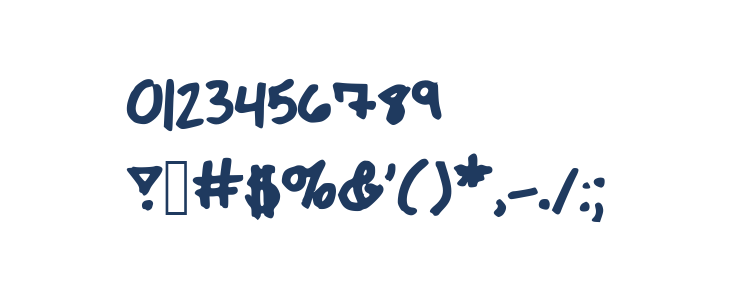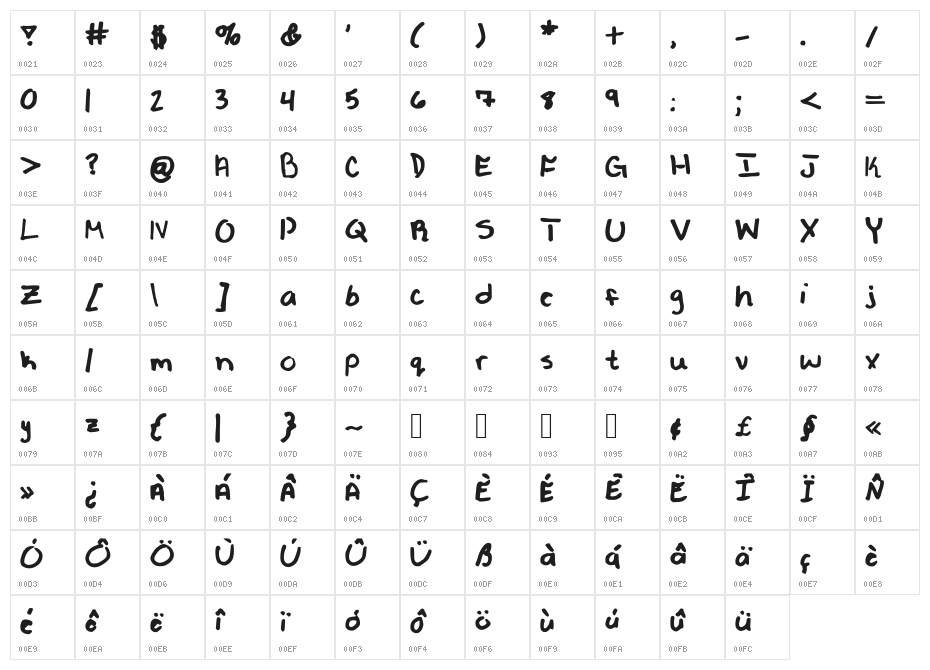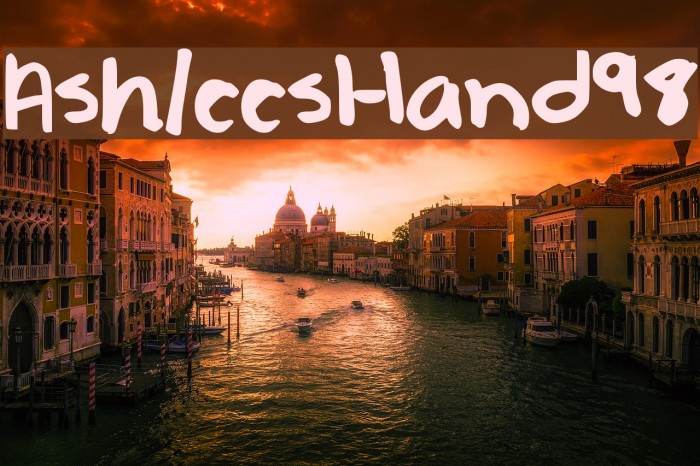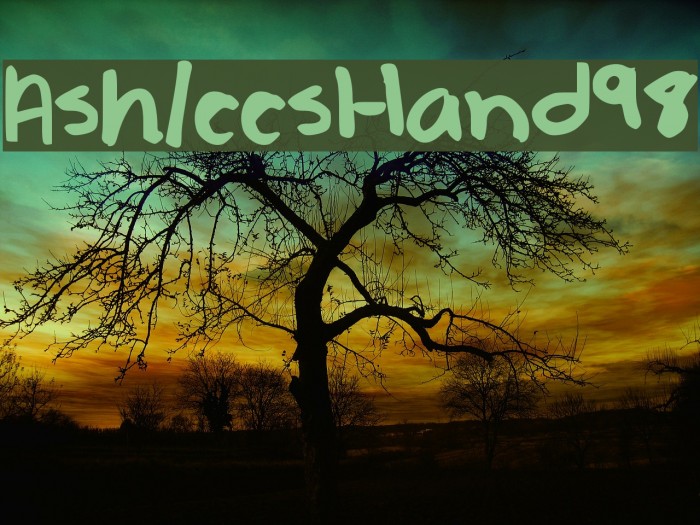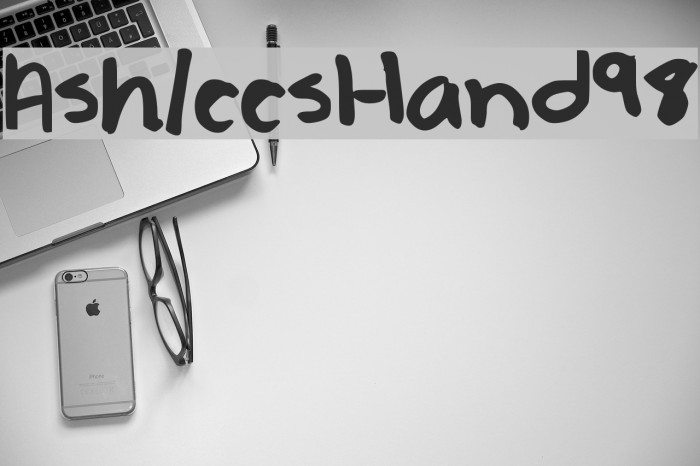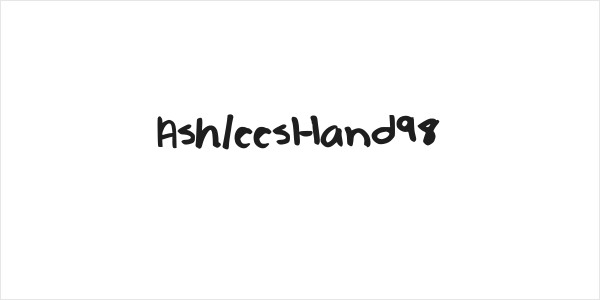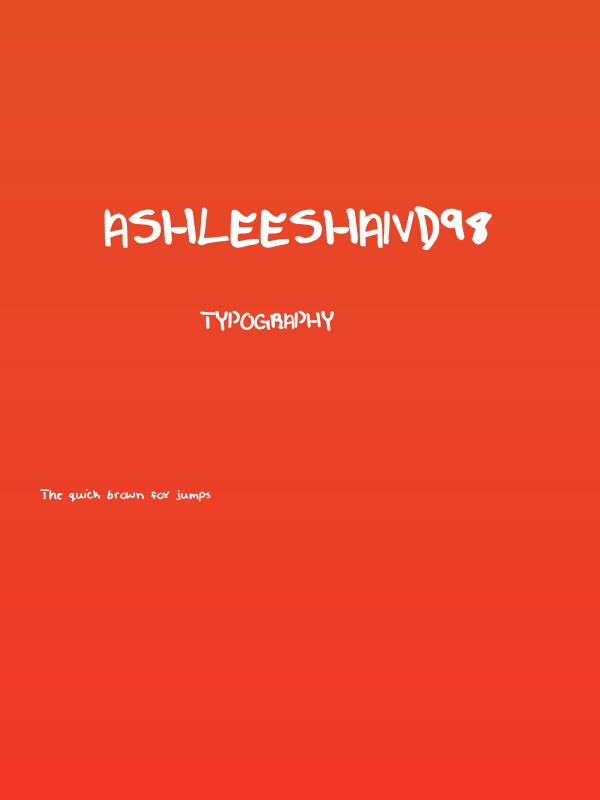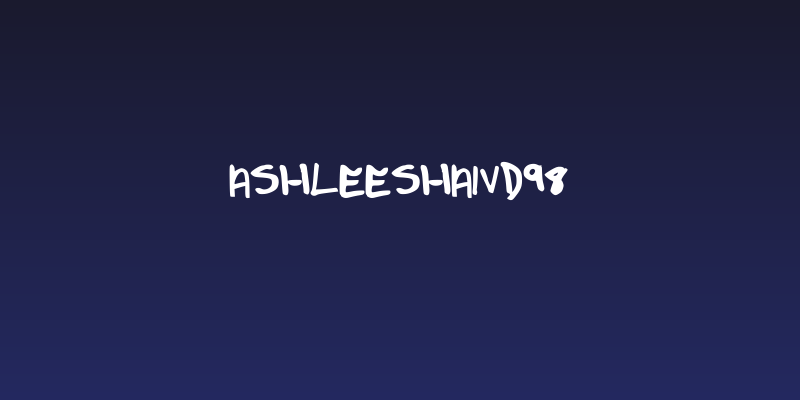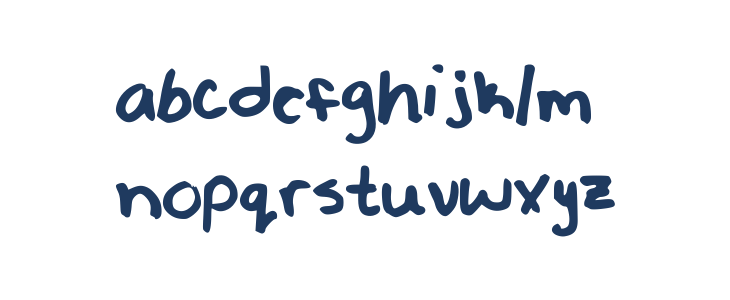
AshleesHand98 Font
AshleesHand98 Description
This playful and informal font exudes a handwritten charm, characterized by its bold and slightly irregular strokes. The letters are crafted with a casual flair, giving each character a unique and personal touch. The uppercase and lowercase letters maintain a consistent style, with rounded edges and a slight tilt that enhances the handwritten feel. Numbers and special characters follow the same design principles, ensuring a cohesive look across all elements. This font is perfect for projects that require a personal, friendly, and approachable aesthetic.
| Overall Style | Playful |
| Use Case | Logos, Headlines, Informal Text |
| Proposed Projects | Ideal for greeting cards, personal invitations, children's books, and playful branding projects. |